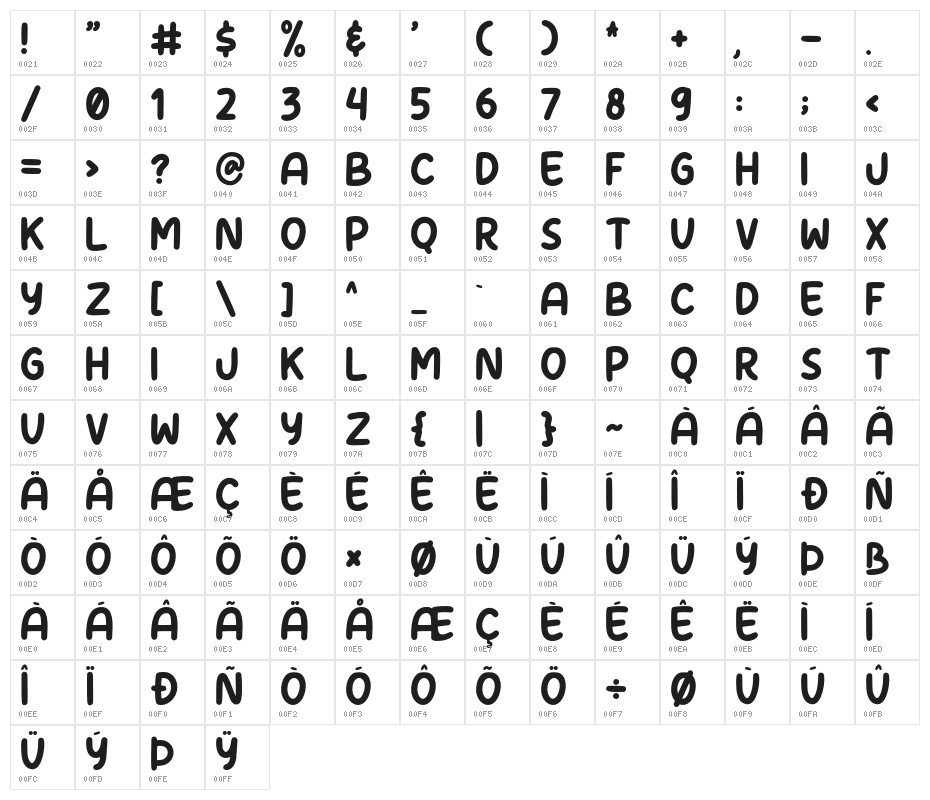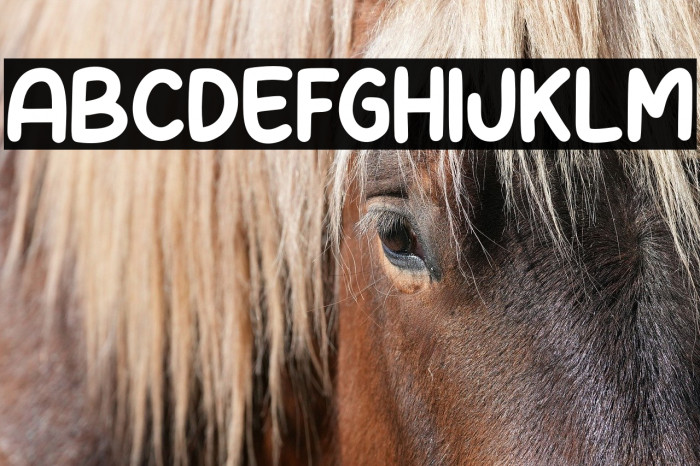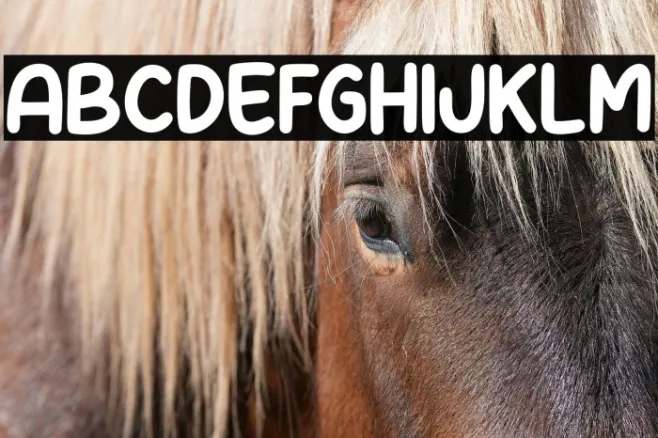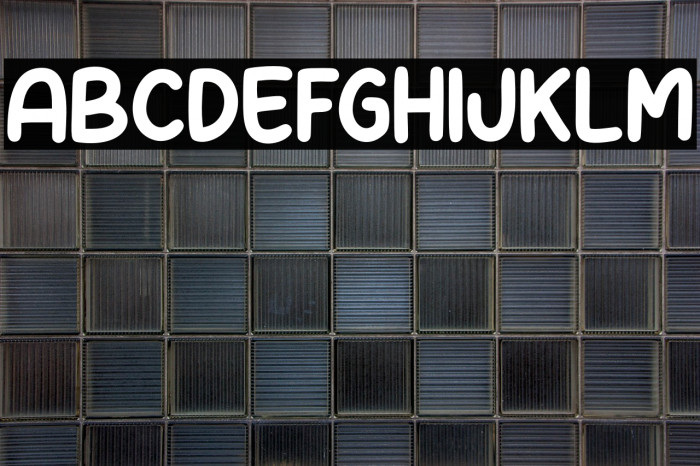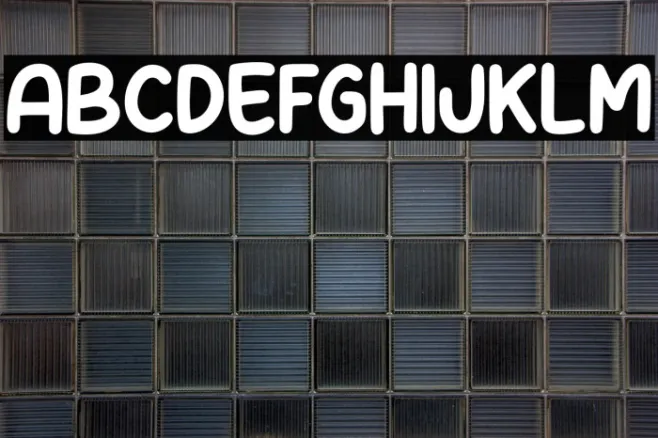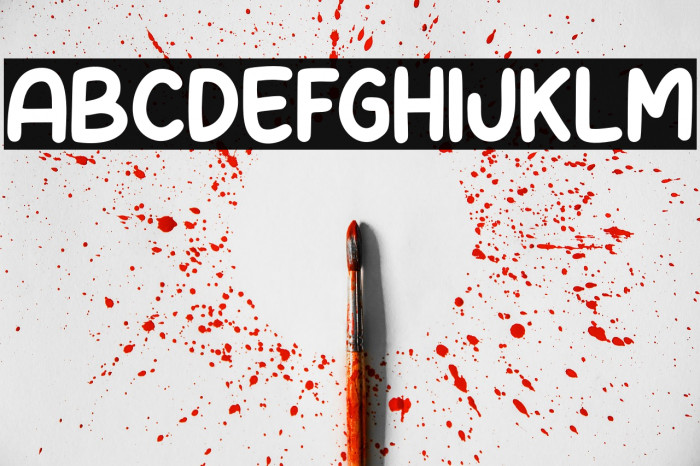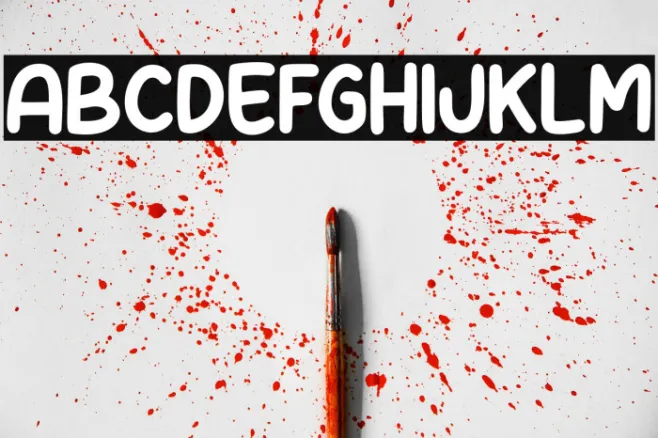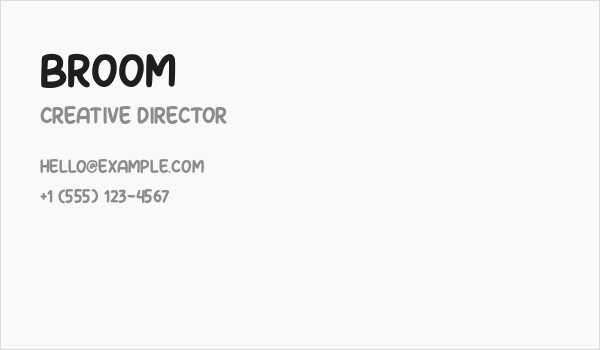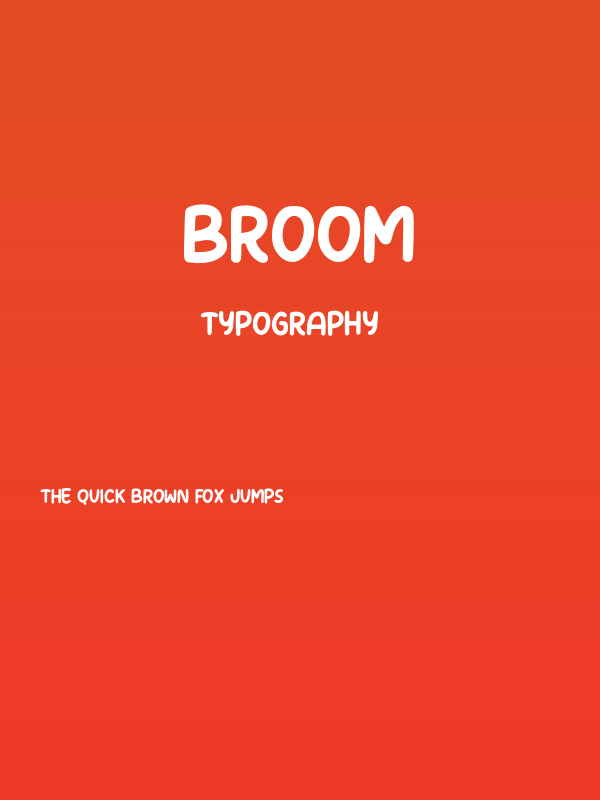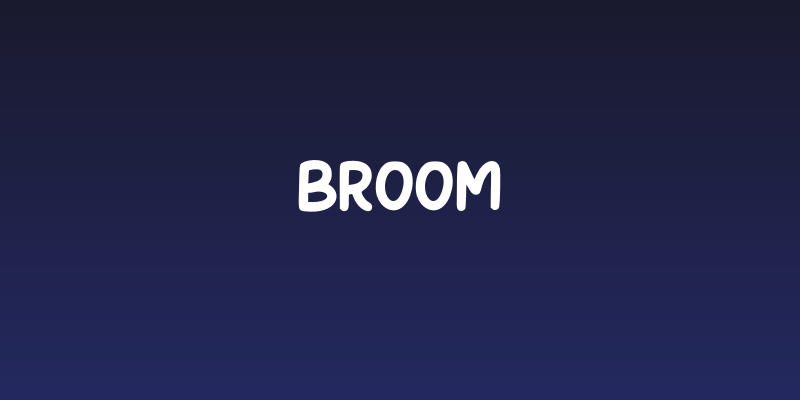
Broom Font
Broom Description
This playful and bold font features rounded, thick strokes that give it a friendly and approachable appearance. The characters are uniformly wide, with a consistent stroke weight that maintains readability while adding a touch of whimsy. The font's design is reminiscent of hand-drawn lettering, making it suitable for projects that require a casual and informal tone. The rounded edges and uniformity in stroke width contribute to its modern and clean aesthetic, making it versatile for various design needs.
| Proposed Projects | Ideal for children's books, playful branding, posters, and social media graphics. |